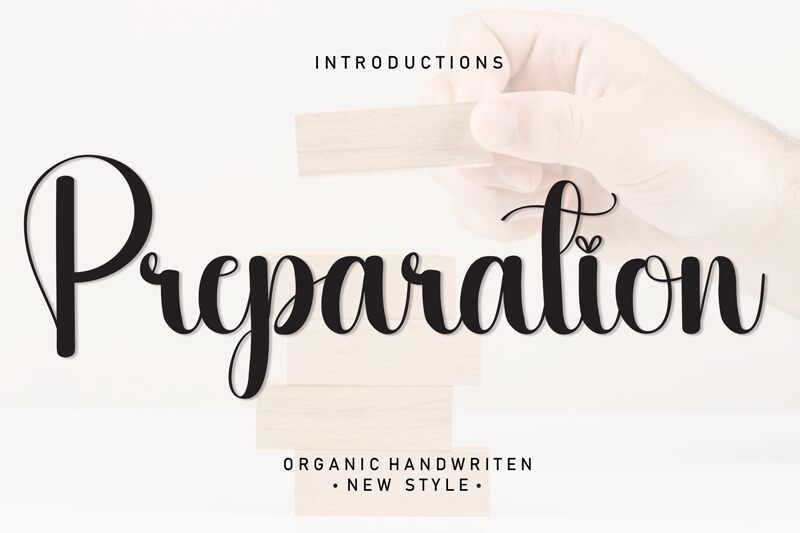
Preparation
Preparation font, designed by Scratchones, exudes an elegant calligraphic charm that captivates with its fluid curves and graceful flourishes. The soft, sweeping lines offer a light and airy feel, making it particularly inviting. Its beautiful interplay of bold and delicate strokes creates a striking visual rhythm that draws the eye.
The unique balance of its distinct characters lends itself perfectly to both sophisticated branding and heartfelt invitations. Ideal for wedding stationery or boutique logos, this font adds a personal touch while maintaining an air of refinement. Preparation stands out as a versatile choice for anyone looking to elevate their design with an artistic flair. Its captivating attributes ensure it remains memorable across various contexts, embracing creativity in every stroke.